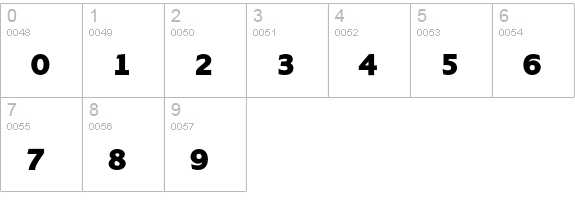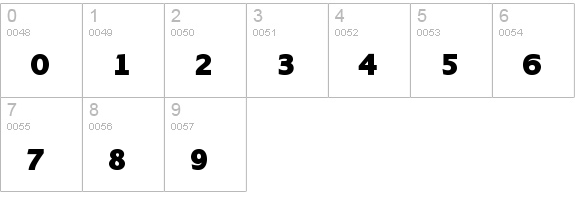
Alphabet4-BoldSmallCaps Font Details
Alphabet4-BoldSmallCaps is a modern and stylish font that combines boldness with a touch of sophistication. The small caps design adds a unique flair to any project, making it perfect for headlines, logos, and branding materials. This versatile font is suitable for various design purposes, from print to digital applications. The Alphabet4-BoldSmallCaps font is available for free download at FontsMarket.com, where you can easily access and use it in your projects without any cost. With its clean lines and contemporary aesthetic, this font is sure to make a statement and elevate your designs to the next level. Stand out from the crowd and enhance your creative work with Alphabet4-BoldSmallCaps font.